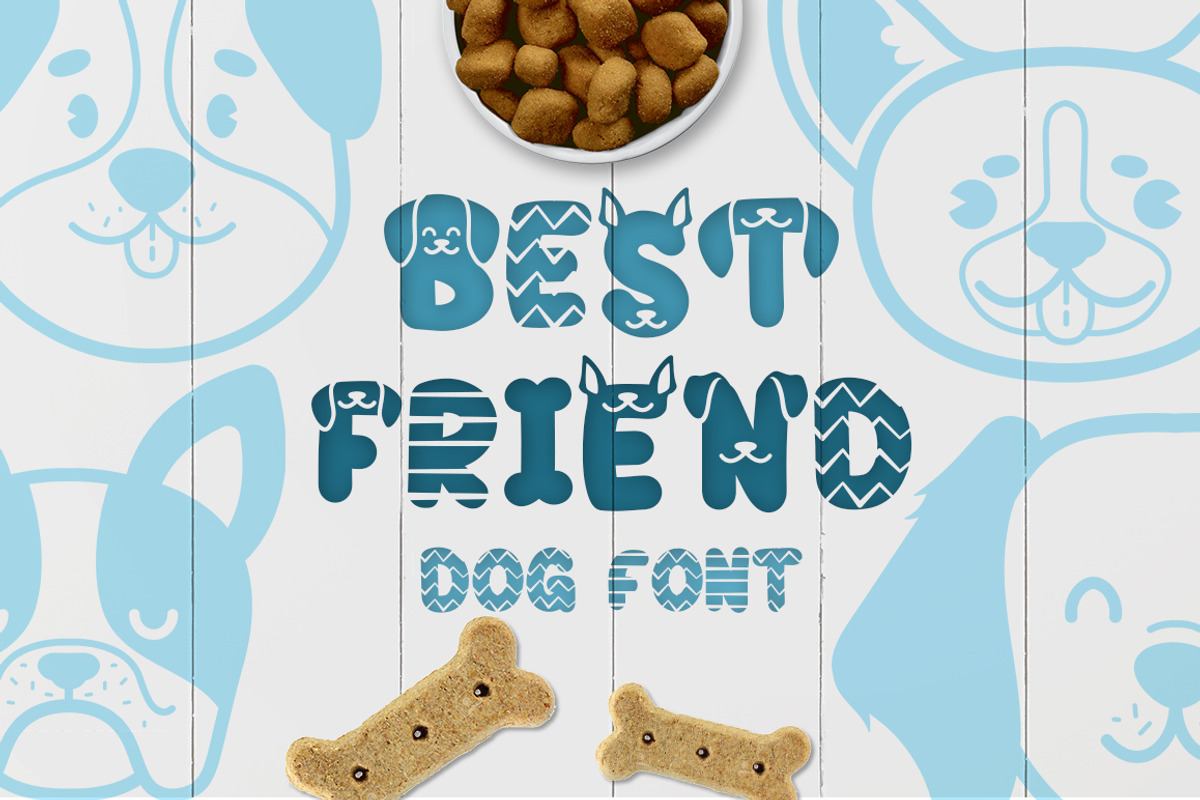
Best Friend - Dog font and clipart Free Download
Best Friend - Dog Font and Clipart Free Download is a heartwarming and playful design set that celebrates our furry companions. Featuring a charming handwritten font paired with adorable dog-themed clipart, this bundle is perfect for pet lovers, dog groomers, animal shelters, and anyone creating pet-related products or graphics.
The font includes fun, casual lettering that mimics the friendly personality of man’s best friend, while the clipart offers cute illustrations like paw prints, bones, and happy pups. Whether you're designing custom t-shirts, stickers, greeting cards, or social media graphics, Best Friend - Dog Font and Clipart Free Download adds a lovable touch that dog owners will instantly connect with.